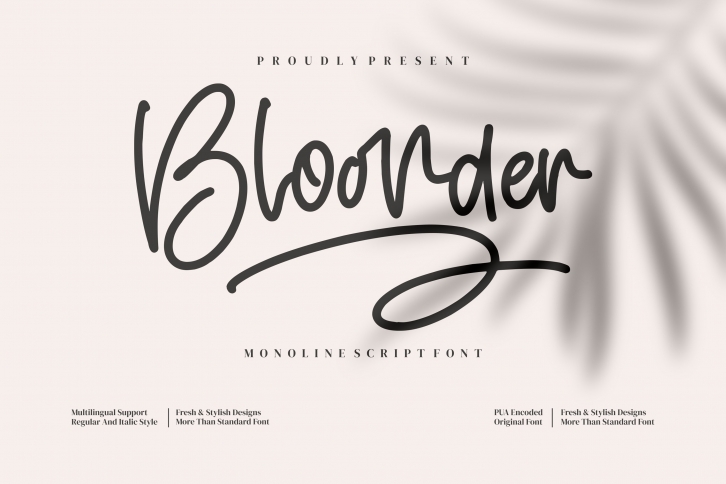
Bloonder is a beautiful font that was designed by Integritype Studio. It's a great choice for designers and creatives who need such a font. It was released on August 17, 2021 and the file size is 3.90 MB. Bloonder may give a more youthful, expressive and casual look to your project. It is a very beautiful, refined, elegant, and high-quality font.